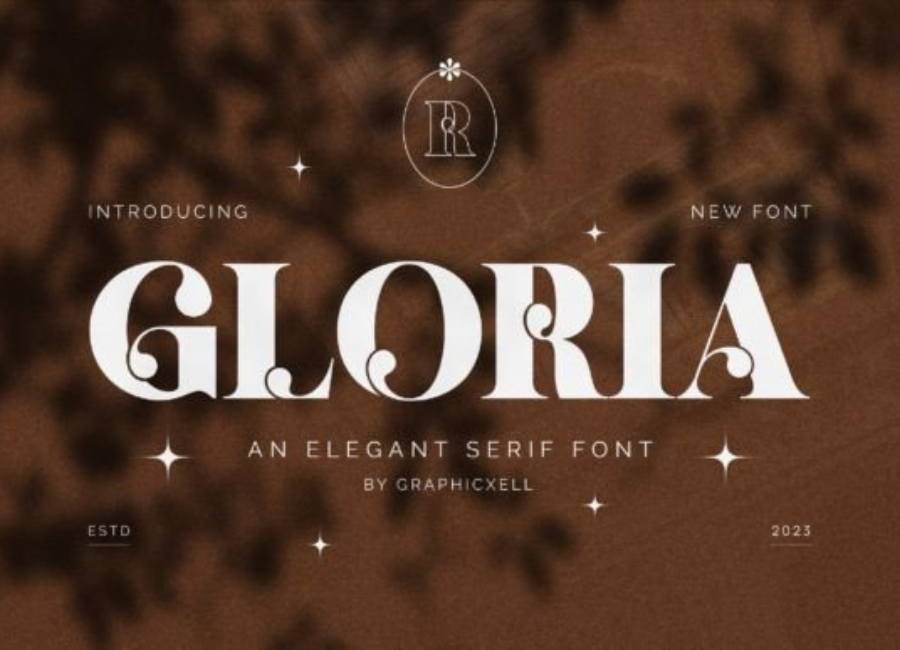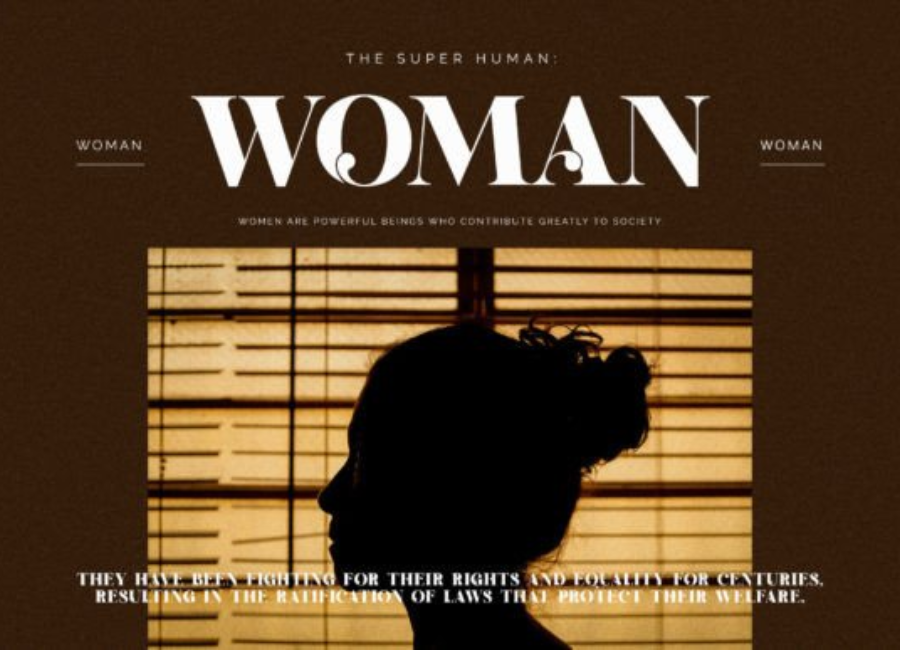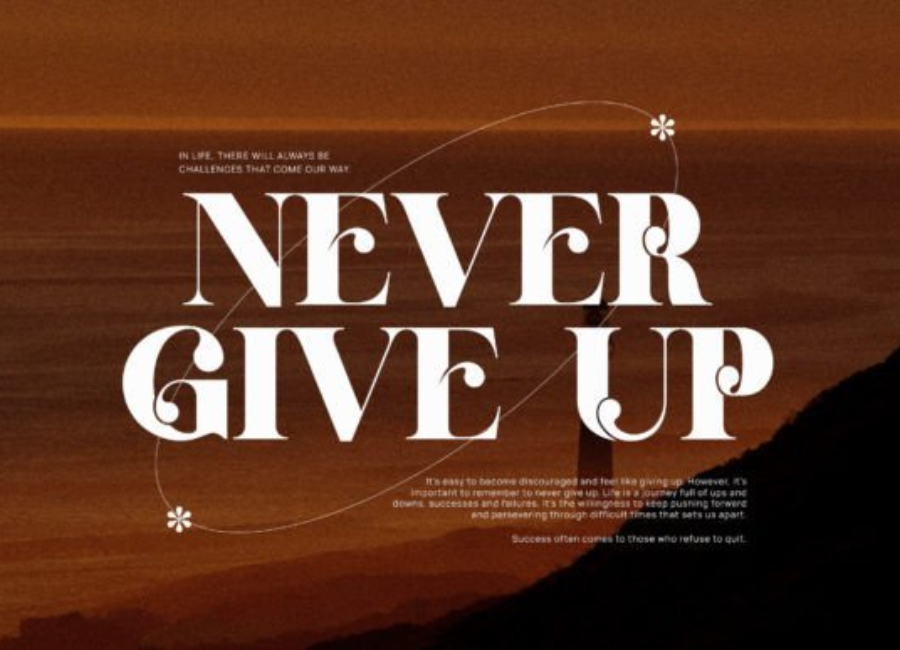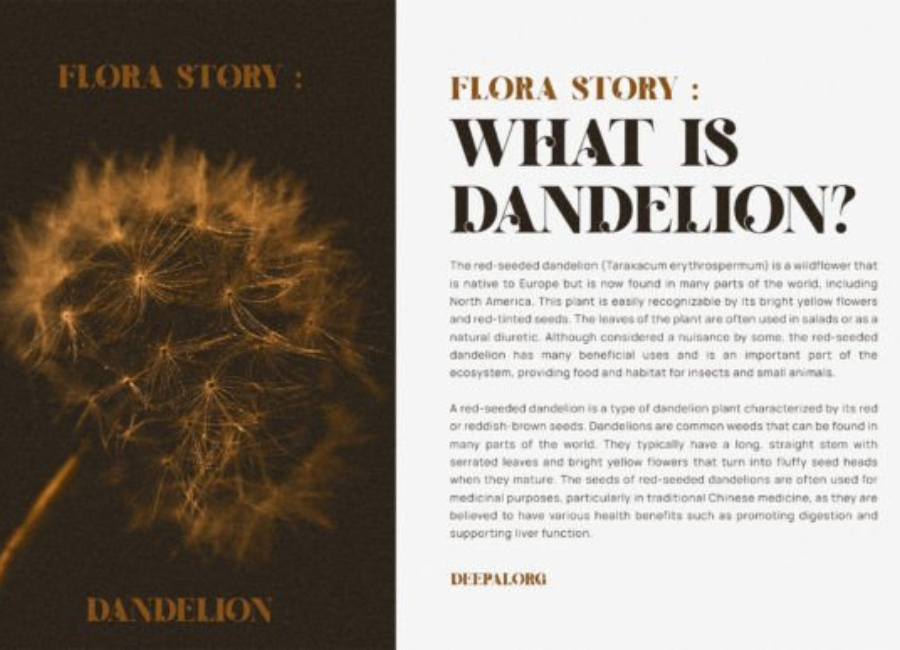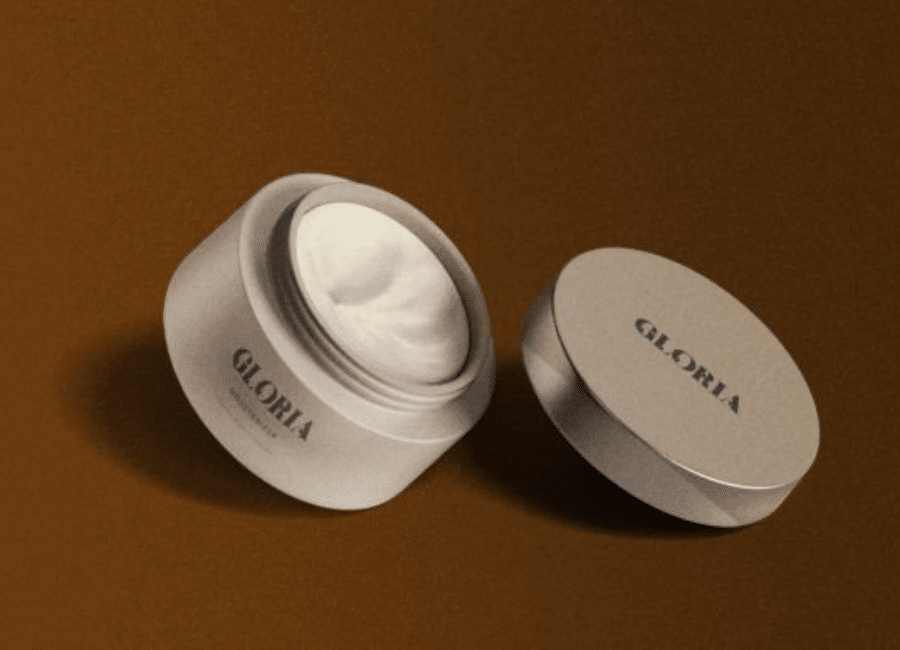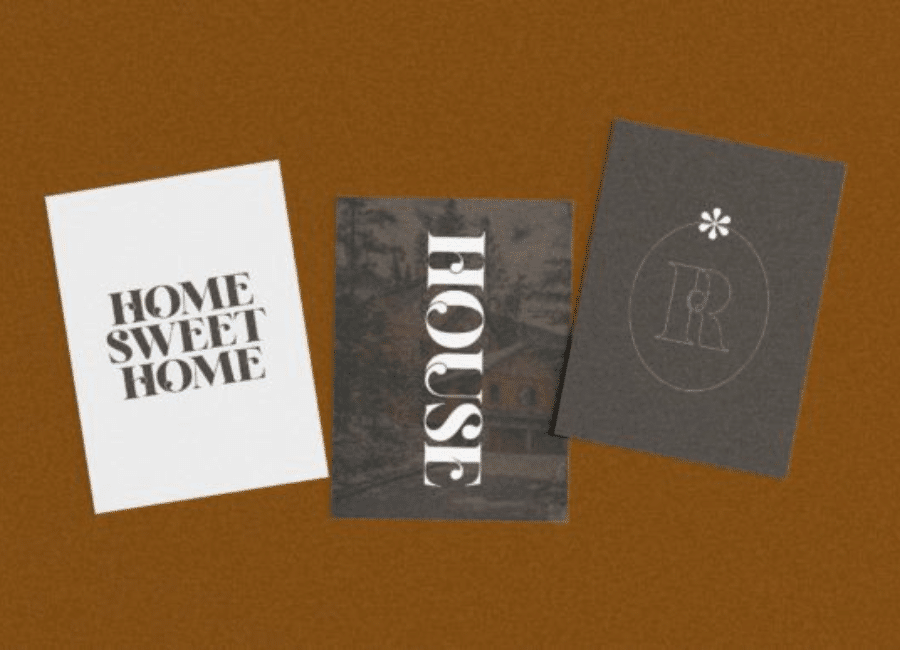
This is Gloria Font
Gloria Font: A Stylish Typeface That Balances Elegance and Personality
Typography plays a critical role in visual communication, shaping how messages are perceived before a single word is read. Among the many typefaces available to designers today, Gloria Font stands out as a refined yet expressive choice that blends elegance with character. Designed to be visually engaging and versatile, Gloria Font offers a unique balance between sophistication and warmth, making it suitable for a wide range of creative applications.
Whether used for branding, editorial layouts, packaging, or digital designs, Gloria Font delivers a polished appearance that enhances visual storytelling. This article explores the defining features of Gloria Font, its design personality, practical use cases, and why it continues to attract designers looking for a distinctive typographic voice.